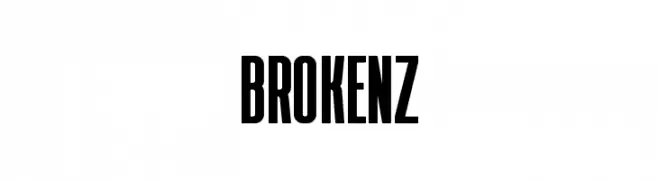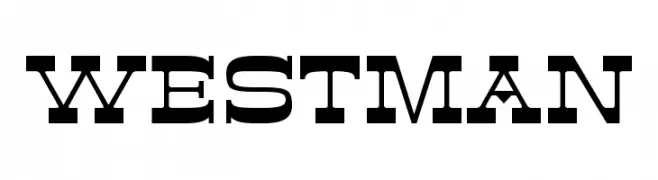
A bold slab serif font with strong, block-like serifs and consistent stroke width.
A flowing, cursive font with elegant, sweeping strokes and a handwritten appearance.
A bold, geometric font with angular serifs and a modern industrial feel.
A flowing, elegant script font with artistic, cursive strokes.
A flowing, elegant handwritten font with a sophisticated cursive flair.
A bold, decorative font with vintage flair and elegant serifs.
A bold, modern font with tall, narrow characters and consistent stroke width.
A bold, condensed font with a modern and impactful style.
An elegant, flowing script font with a handwritten, artistic style.
A flowing, cursive font with elegant loops and swashes, perfect for personal projects.